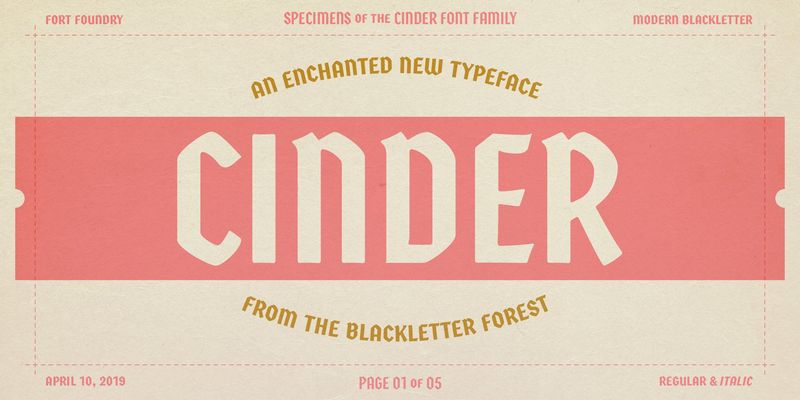
Cinder Font Free Download
Cinder Font Free Download is a bold, edgy display typeface designed to bring drama and intensity to your typography. With its sharp lines, compact structure, and slightly distressed feel, this font is perfect for posters, album covers, video game graphics, movie titles, and branding that demands a gritty, high-impact look.
Inspired by fire, ash, and industrial textures, Cinder Font Free Download evokes strength, resilience, and a raw aesthetic that grabs attention instantly. Its aggressive styling makes it ideal for headlines and logos, where character and visual punch are essential. Cinder doesn’t whisper—it roars.
This typeface works beautifully in large sizes and pairs well with clean sans-serifs or subtle textures for contrast. Whether you’re designing for heavy metal music, urban fashion, or dystopian themes, Cinder brings a unique energy and attitude to the table.